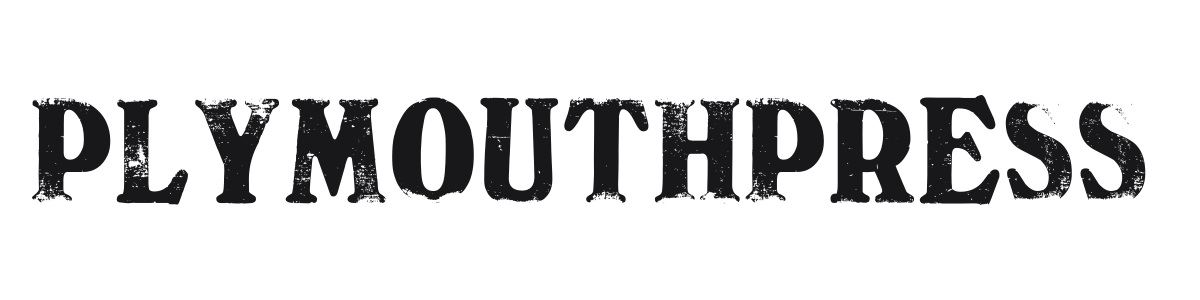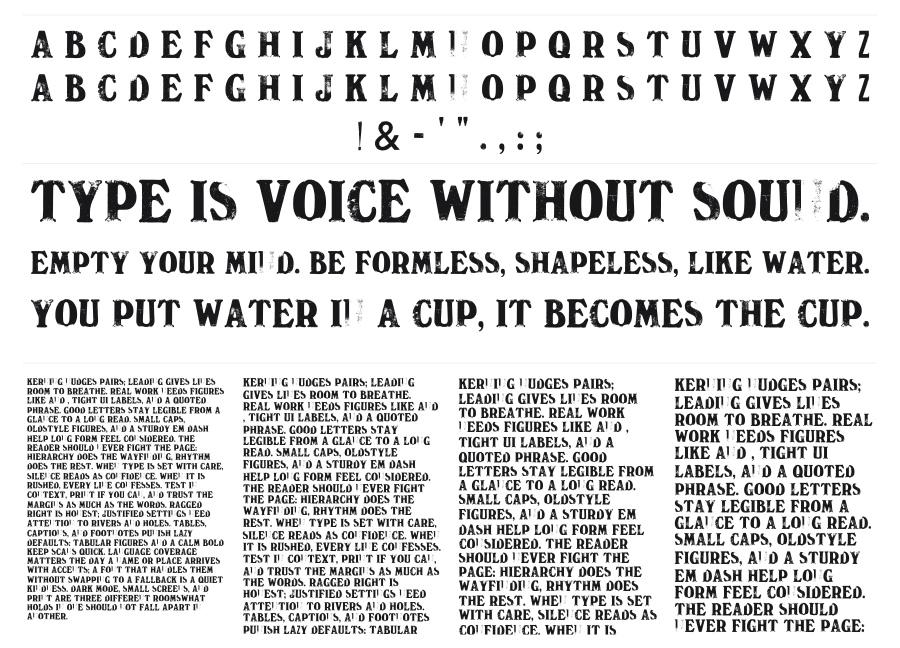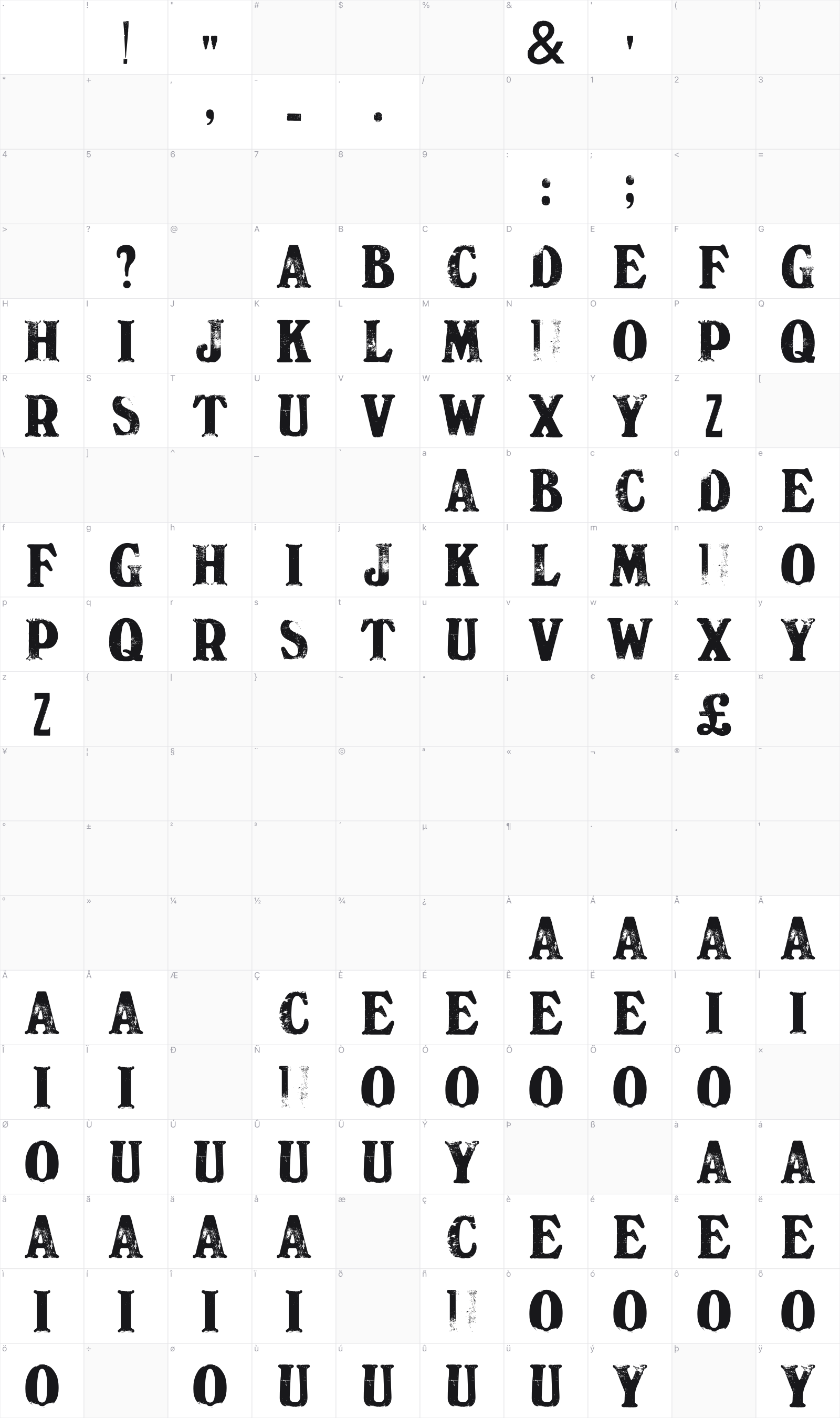
PlymouthPress
PlymouthPress is a letterpress display font built from actual printed specimens produced in the University of Plymouth's historic press workshop. Instead of vector outlines, each glyph is a bitmap image capturing real ink texture, paper grain, and physical imperfections that no digital distress filter can convincingly fake. An OpenType alternates system automatically cycles through multiple versions of each character as you type, so repeated letters never look identical.